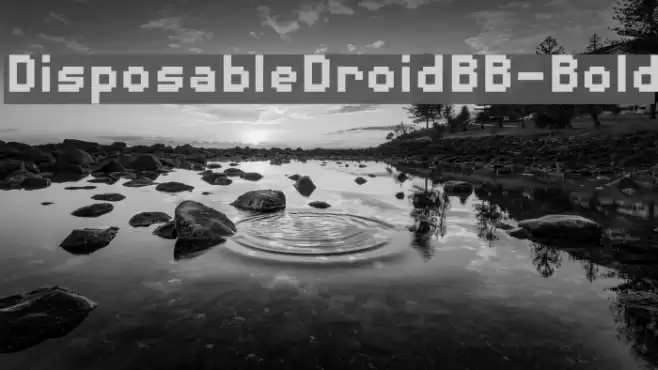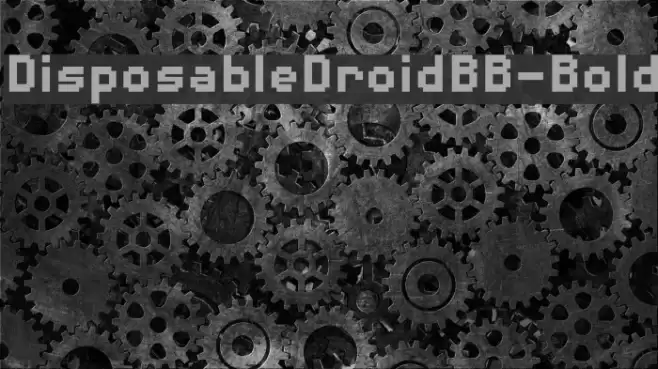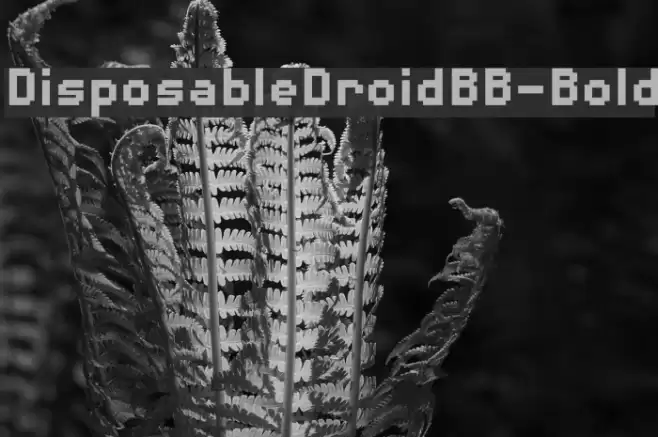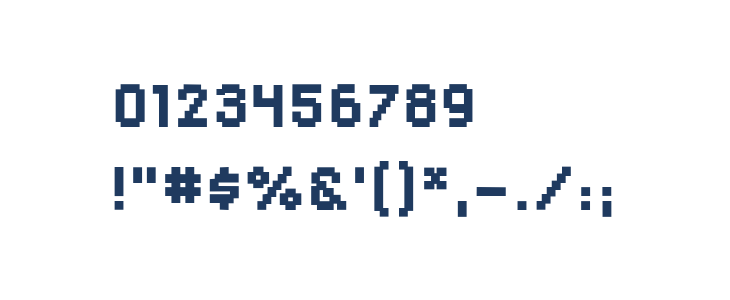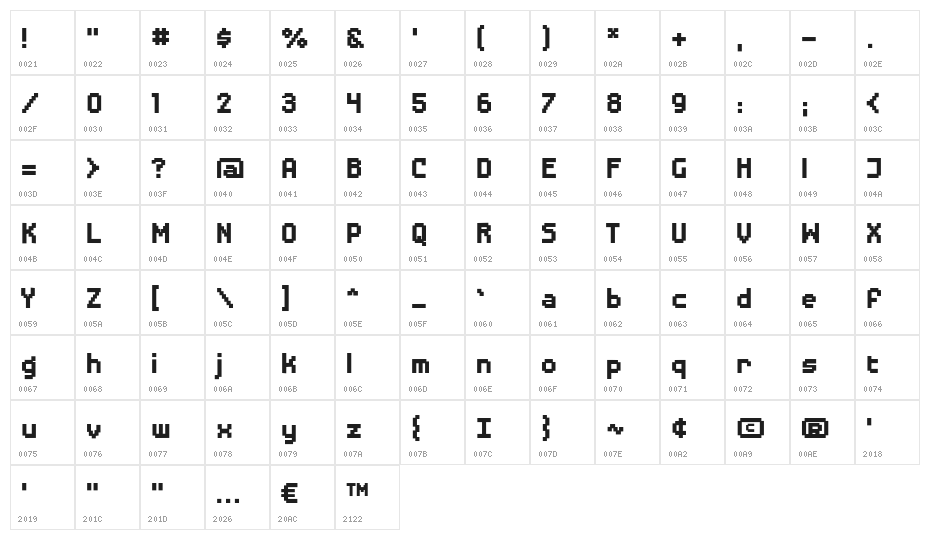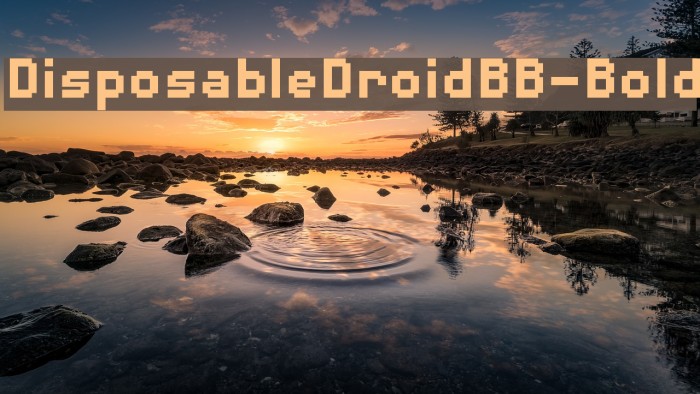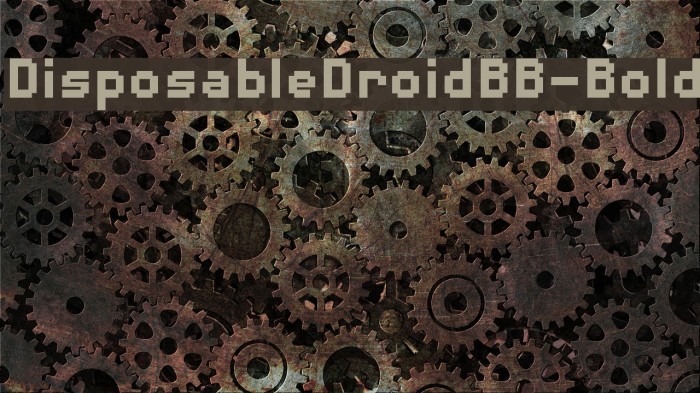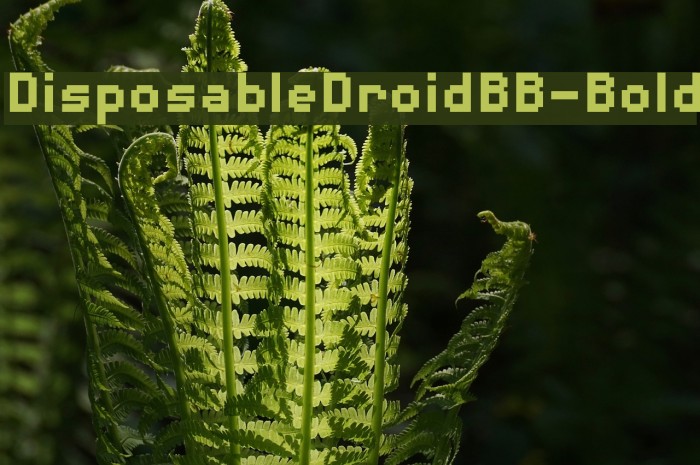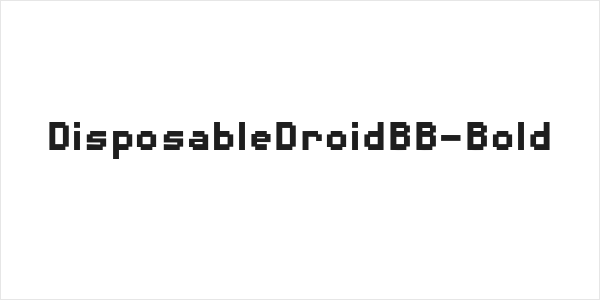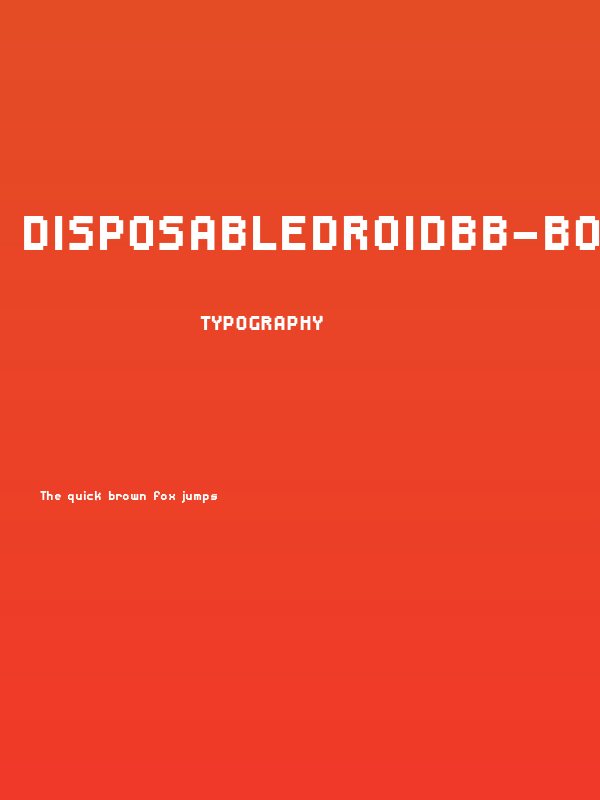
DisposableDroidBB-Bold Font
DisposableDroidBB-Bold Description
This font features a bold, pixelated style reminiscent of early digital displays and retro video games. Each character is constructed with a blocky, grid-like appearance, emphasizing a strong geometric form. The uniformity in stroke width across all characters gives it a cohesive and structured look. The uppercase and lowercase letters maintain a consistent height, enhancing readability while preserving the nostalgic aesthetic. Numbers and special characters follow the same design principles, ensuring a seamless integration across different text elements. This font's distinct style makes it ideal for projects that aim to evoke a sense of nostalgia or digital retro charm.
A bold, pixelated font with a retro digital aesthetic from Uncategorized fonts.
- Proposed Projects: Ideal for retro video game graphics, digital-themed posters, and nostalgic branding projects.
- Overall Style: Retro, Digital